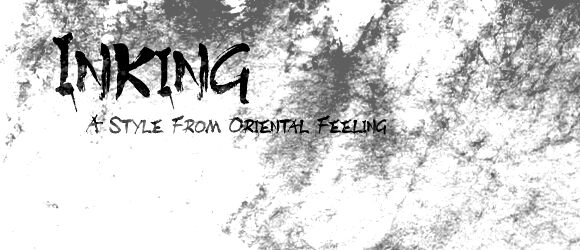
DISTInking Bold by Lee of Digidea Studio is a free brush display font with forceful, hand-painted capitals. Its broad strokes break into ragged edges, sharp flicks, and occasional ink splatters that make the lettering look freshly dragged across paper. The uneven forms keep it raw and restless.
Music, street culture, and horror themes are a natural match for this abrasive brushwork. It can give concert posters and album packaging the look of a hurried band mark, with enough variation in the strokes to avoid a polished logo finish. Skate merchandise and gritty game graphics are equally credible settings, especially when the lettering becomes part of a scratched or ink-stained image.
Inking is a writing brush calligraphy font for Western text.